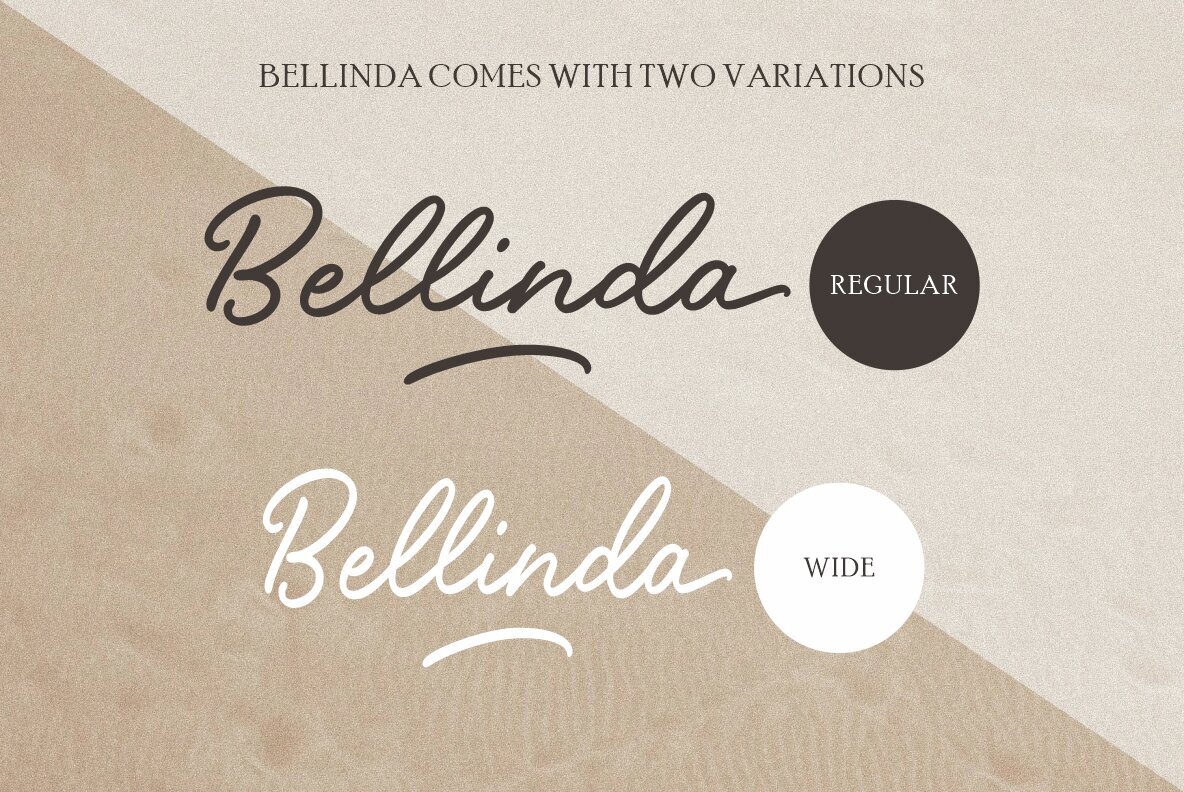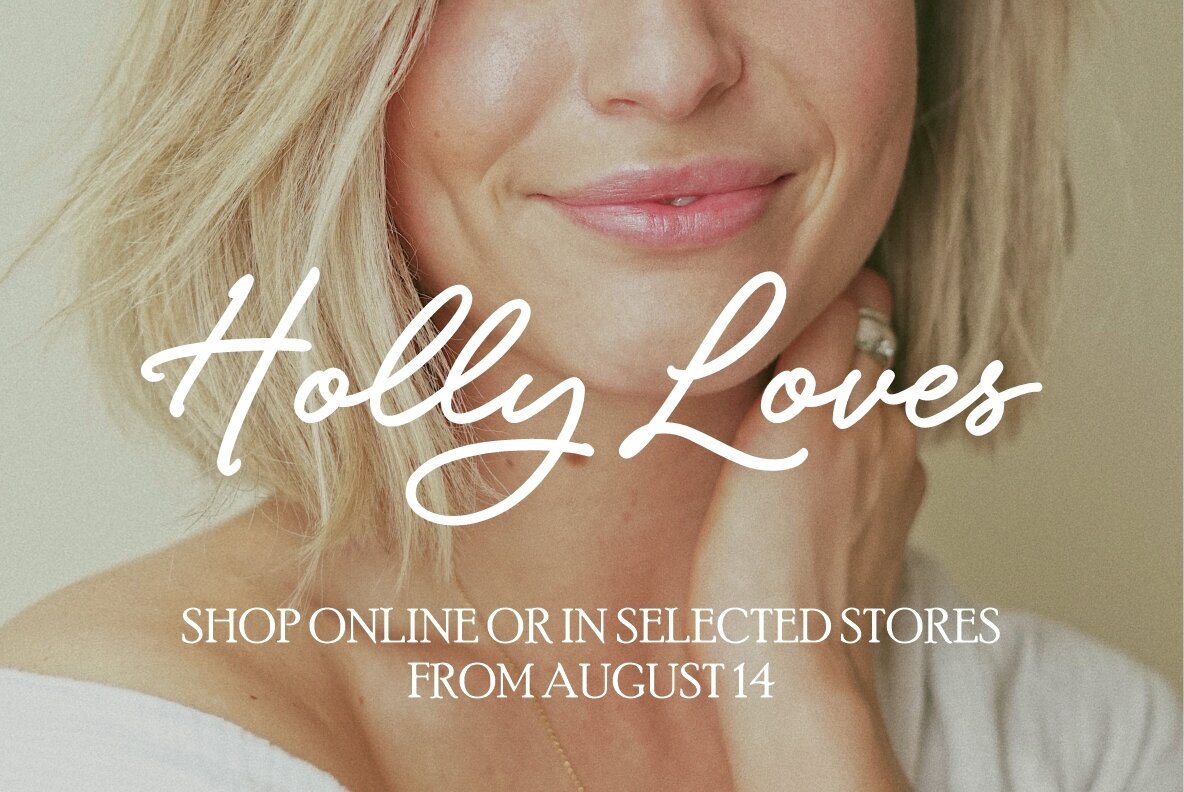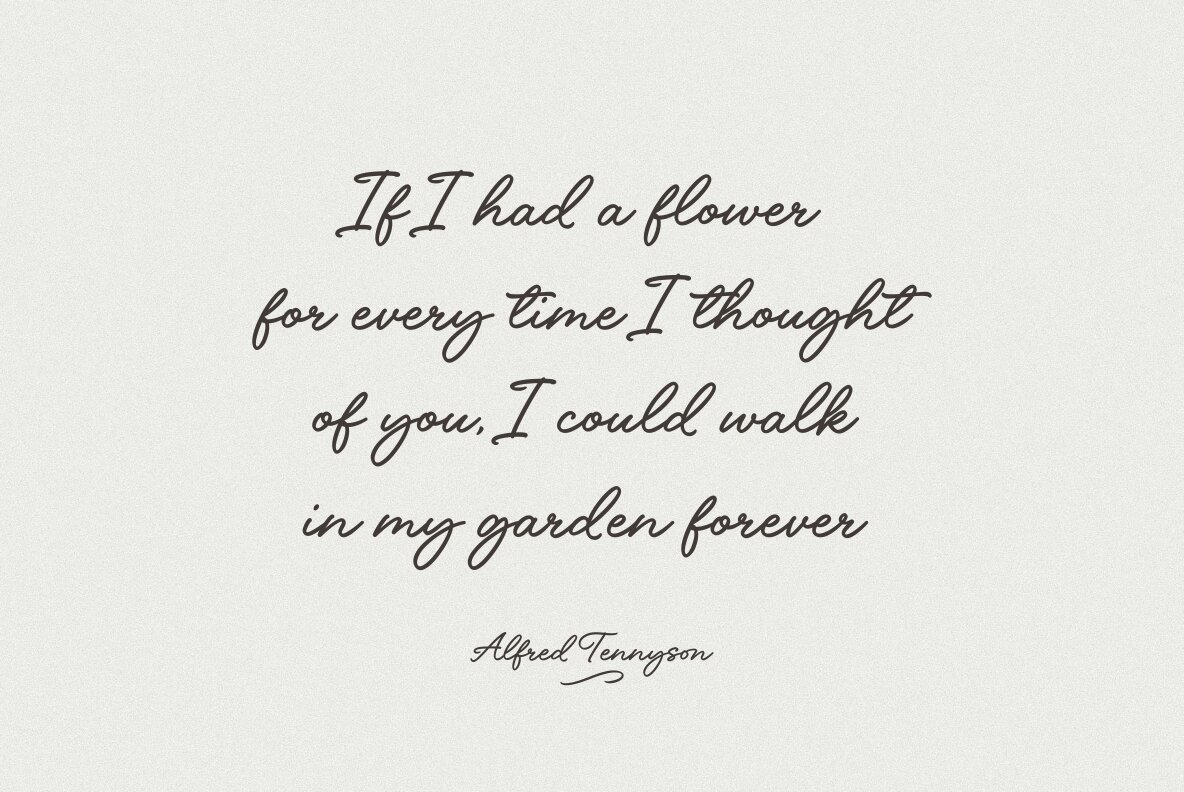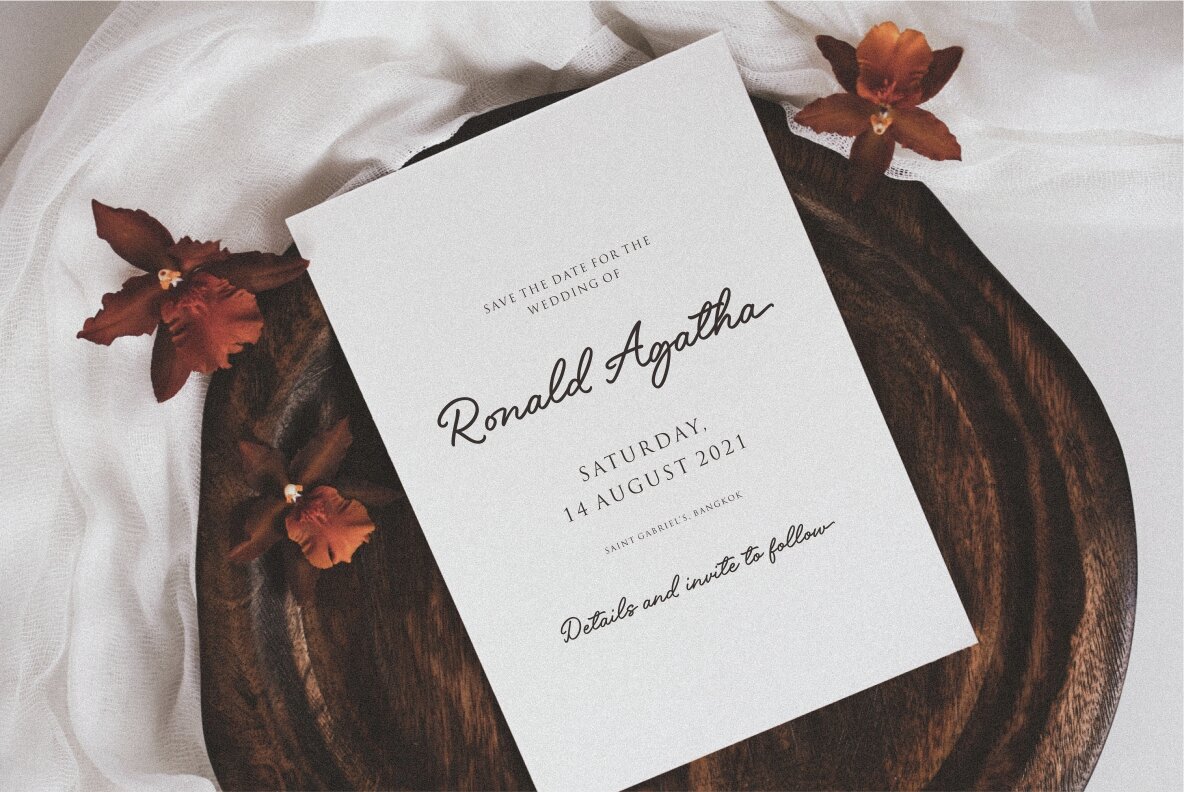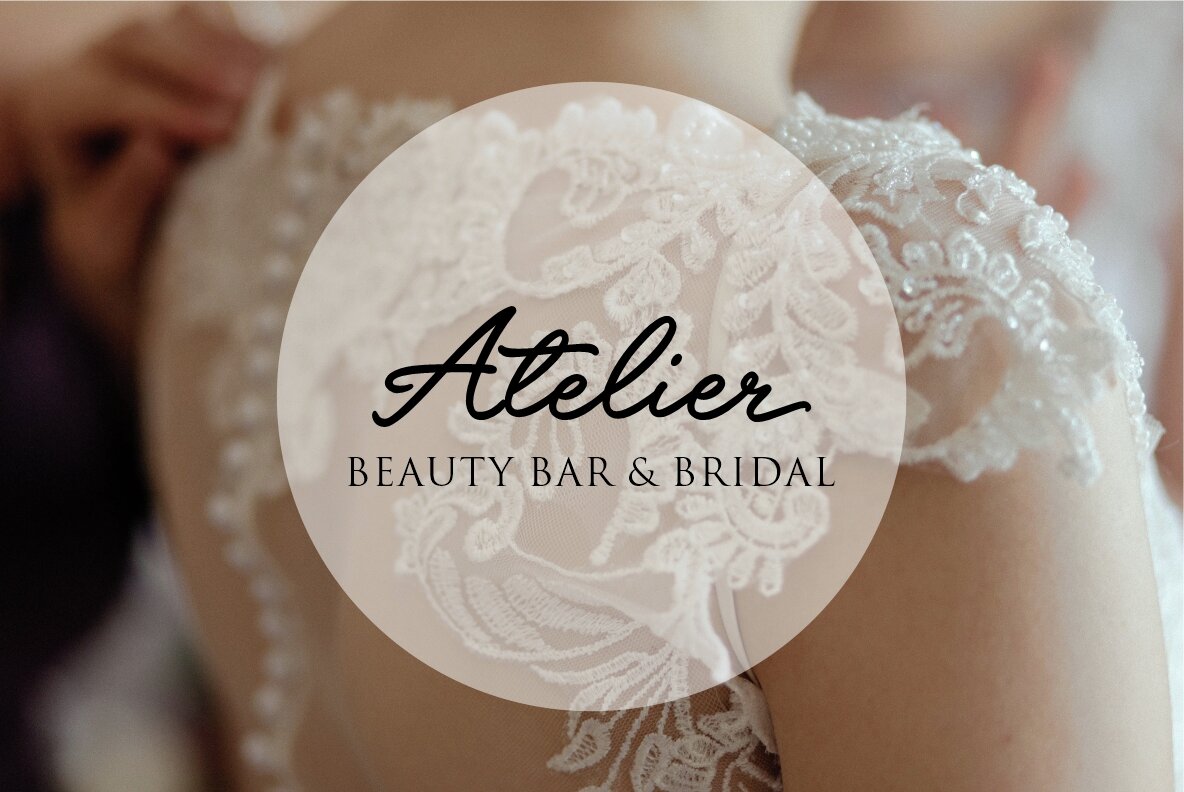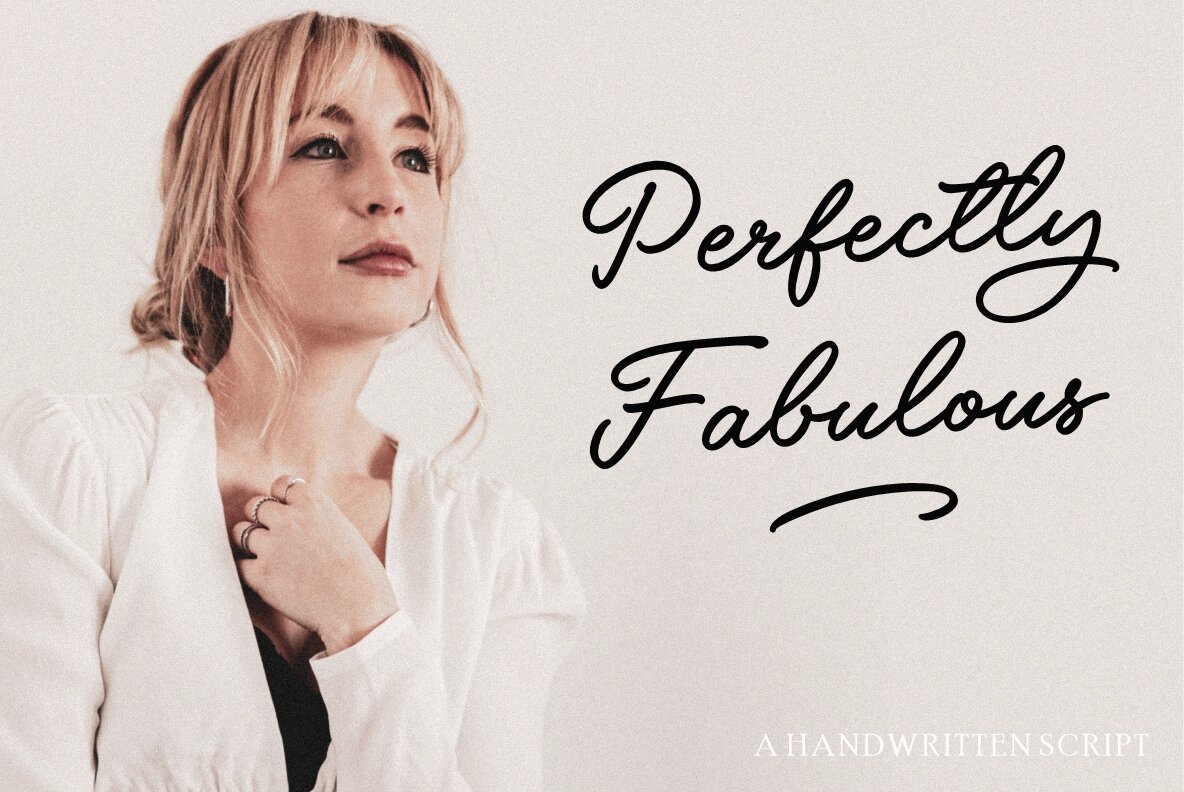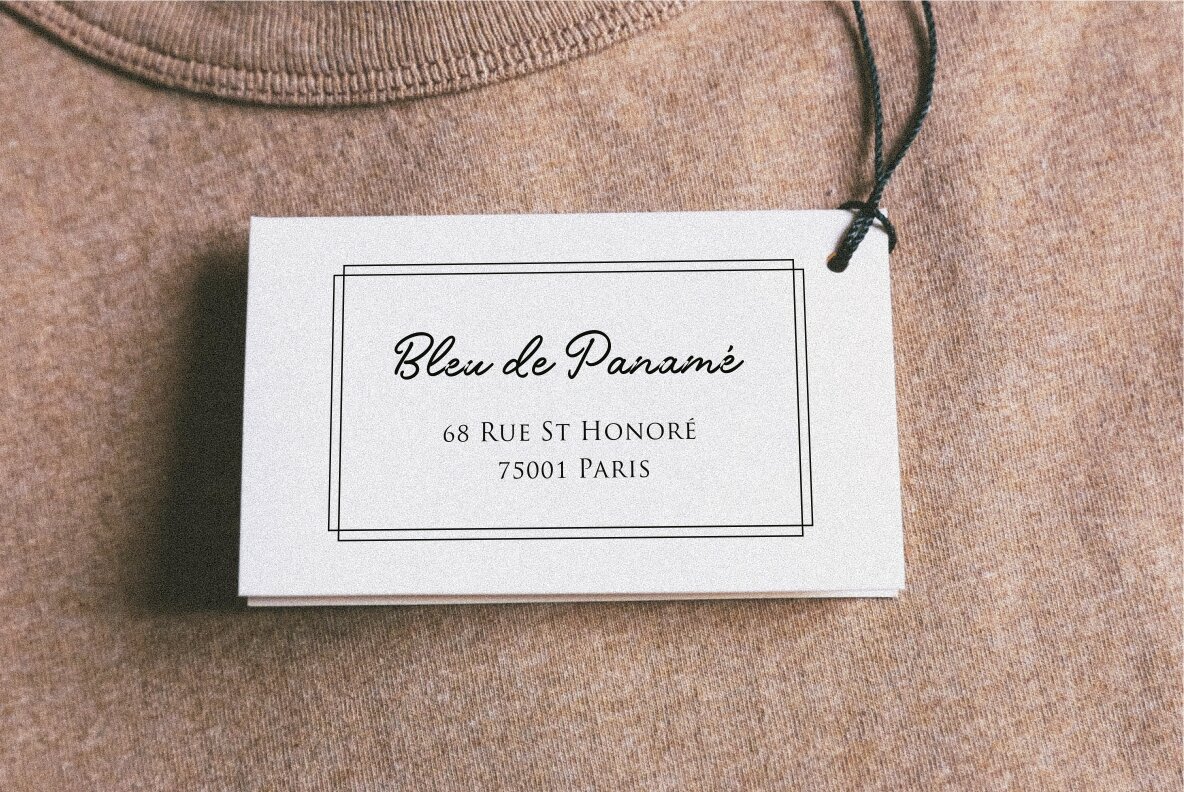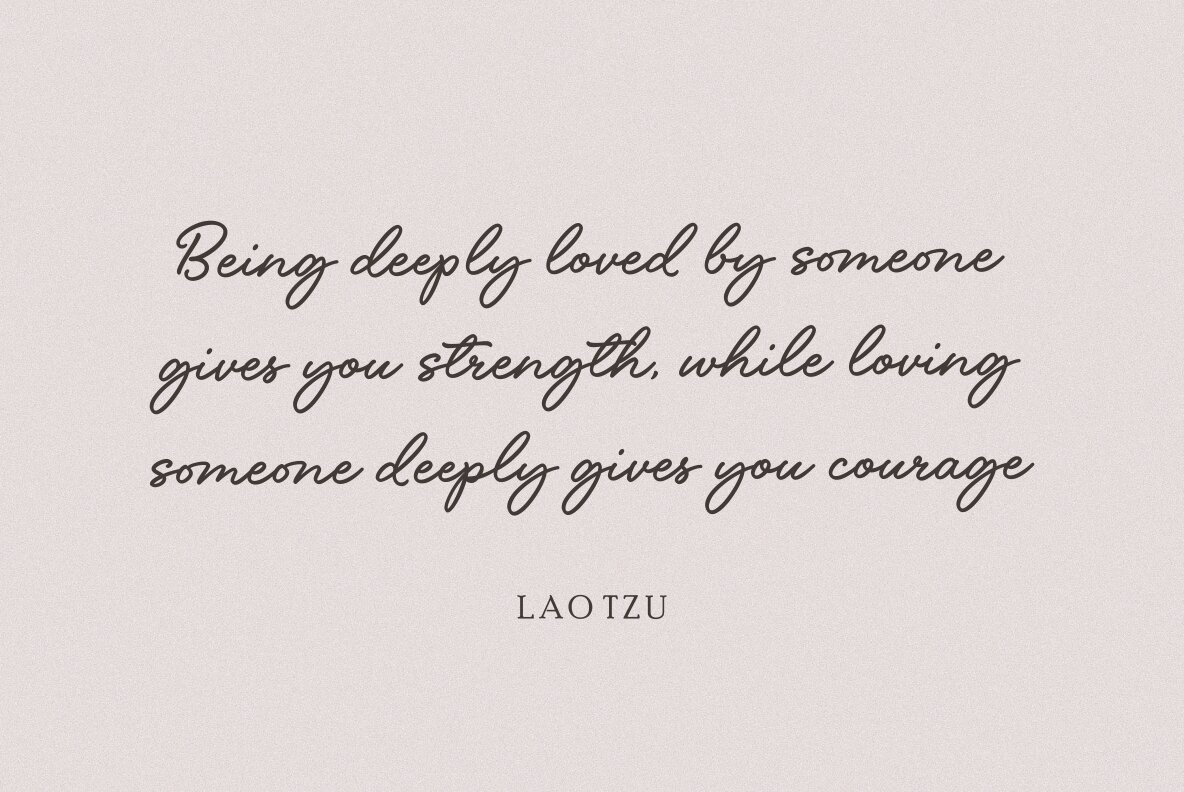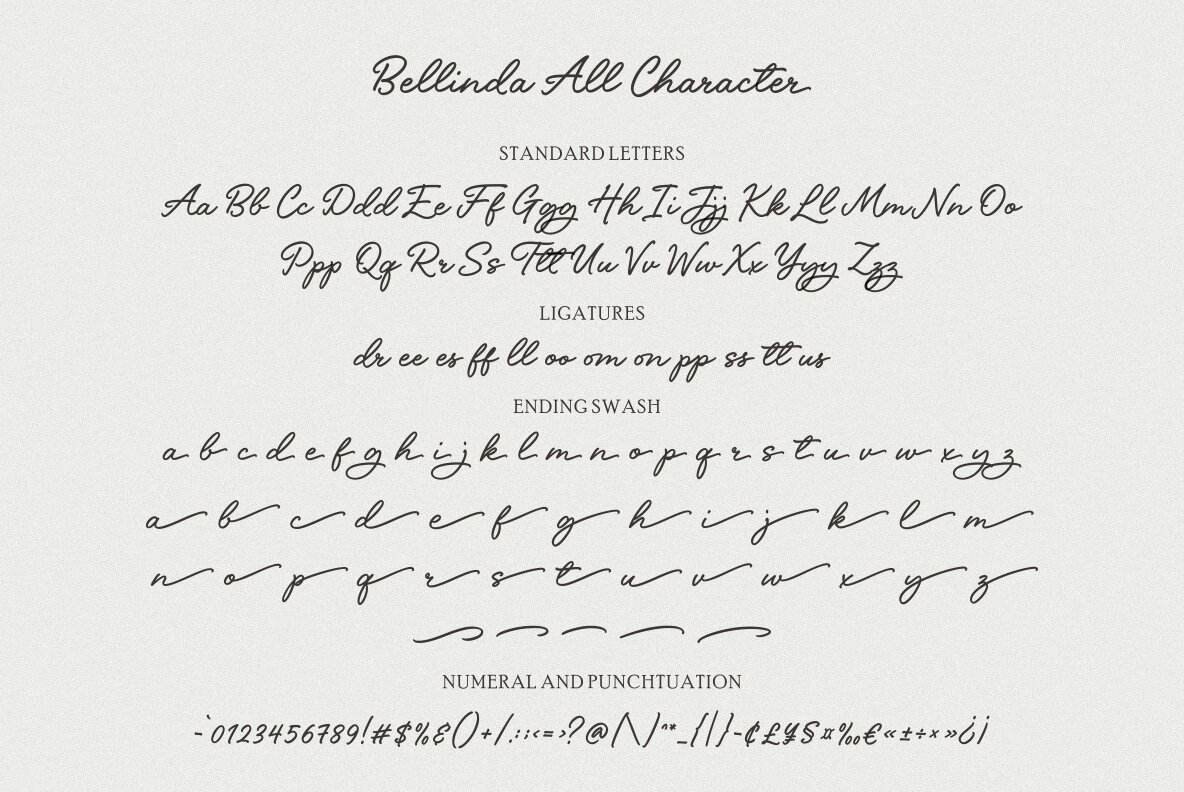
Bellinda Font
Bellinda fonts are written with a thick pen to make them look bigger and wider so that the written words can be read properly. Bellinda is also equipped with several ligatures in several characters of the letter and is equipped with two types of ending swash on each lowercase character and added a few replacement characters in lowercase. Bellinda fonts came up with two concepts namely tilted and upright, each adding a different feel due to its different tilt. Upright becomes a little more cheerful and oblique becomes more elegant. Features: